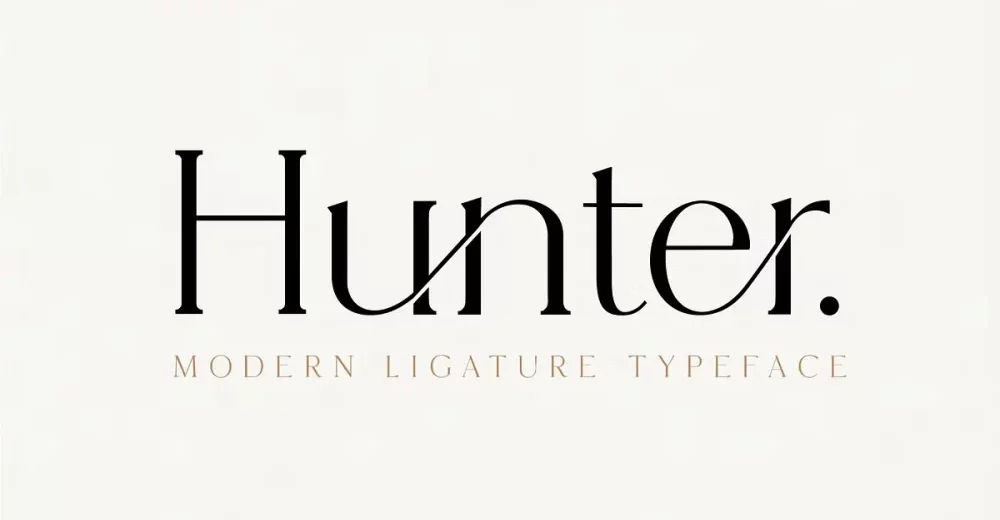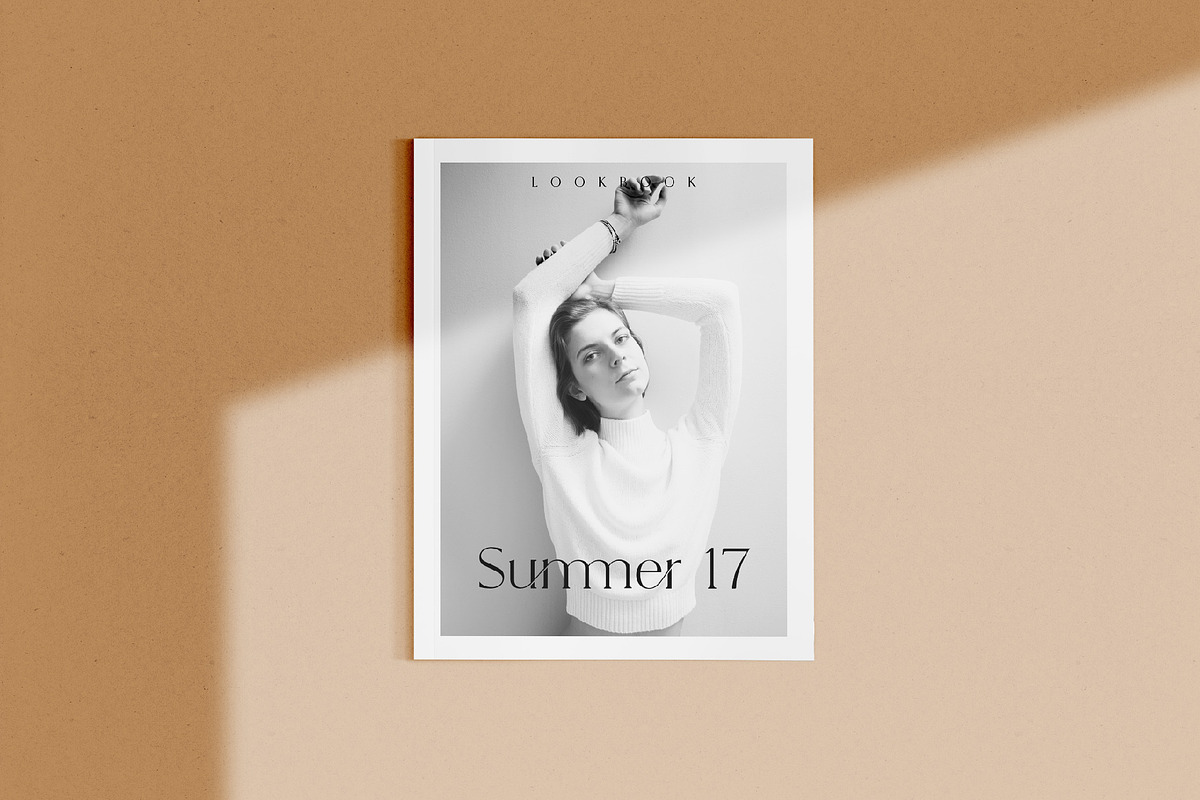
Hunter is an elegant, serif font that uses ligatures to smoothly link letters. It has 20 ligatures as well as numbers and punctuation making it super versatile. Ligatures can be turned off if needed for body copy. It is perfect for combining with invitation card designs, company logos, movie titles, movie names, business cards, book titles, brand names and various other designs.